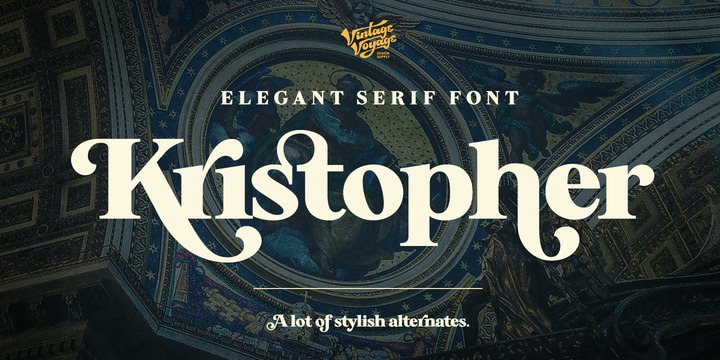
Kristopher Font
Kristopher Font is perfect for modern branding, contemporary logos, professional communications, corporate presentations, clean signage, tech startups, business documentation, sophisticated advertising, digital interfaces, and contemporary visual communications. This versatile typeface excels in both digital and print applications requiring modern professionalism.
Kristopher Font is exciting because it delivers contemporary sophistication with refined letterforms that create professional visual appeal while maintaining exceptional clarity across all platforms. Its modern character generates trustworthy brand experiences that resonate with audiences seeking innovation, reliability, and design excellence.
The Kristopher Font family includes regular, bold, light, italic, condensed, extended, and display variants, providing designers with comprehensive typographic options for various design scenarios and professional communication requirements.
Kristopher Font embodies the essence of contemporary professional communication, combining modern aesthetics with functional excellence to create letterforms that meet the demanding requirements of today's business environment. This sophisticated typeface reflects current design trends while maintaining the authority and reliability essential for corporate success. The font's versatile character makes it particularly valuable for consulting firms, technology companies, professional services, and progressive brands that require typography capable of conveying competence, innovation, and contemporary thinking.
The systematic design of Kristopher Font demonstrates careful attention to modern typography principles, with optimized proportions and balanced details that create excellent readability across diverse digital and print applications. This methodical approach ensures consistent performance from detailed business documentation to large-scale environmental graphics where professional appearance is crucial. The font's reliable qualities make it especially effective for brands in finance, consulting, technology, and professional services that must communicate expertise through clear, authoritative visual design.
Creative professionals working with Kristopher Font Free Download will discover a powerful tool for contemporary design challenges. Its modern styling bridges minimalist and expressive approaches, making it suitable for established corporations and innovative startups requiring dependable, professional typography. The font's authoritative presence makes it particularly effective for corporate communications, business presentations, professional websites, and service-oriented organizations that must communicate competence through modern, trustworthy visual design.
Whether developing corporate brand identities, creating professional communications, or designing contemporary marketing materials, Kristopher Font provides the typographic foundation needed for modern communications that inspire confidence and convey expertise while maintaining competitive advantage and achieving optimal professional impact across all contemporary business platforms requiring sophisticated authority.